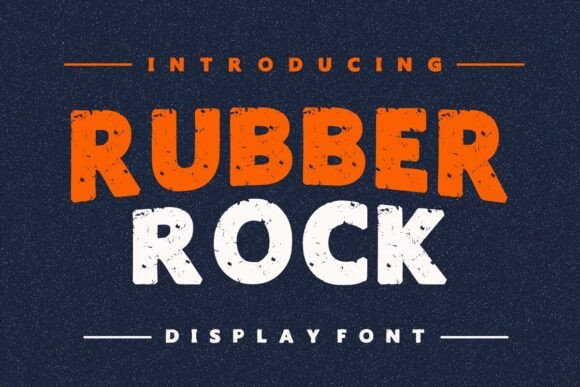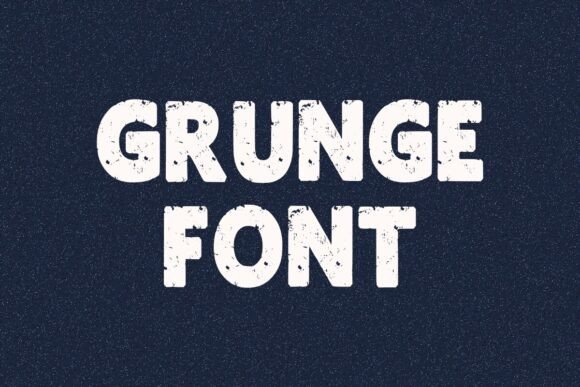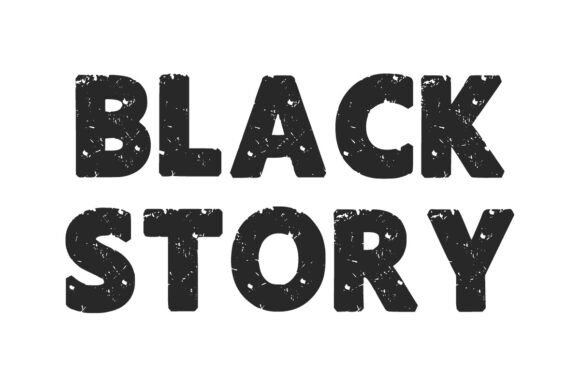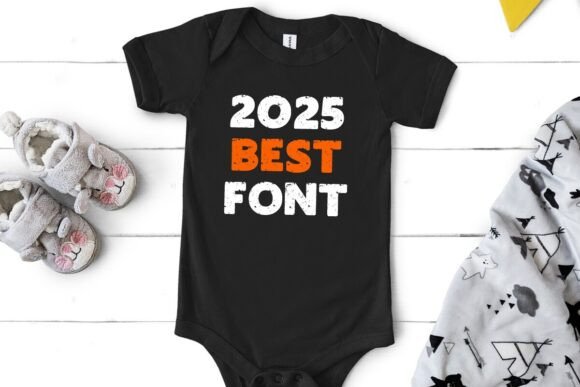
Rubber Rock Font
About the Rubber Rock Font
We are excited to introduce Rubber Rock Font, a must-have typeface for any serious designer. Rubber Rock is a Uppercase Vintage, Retro, dirty, grunge bold display font perfect for various projects such as blog posts, logos, branding, ads, invitations, greeting cards, planners, photo albums, decorations, and more.
Rubber Rock excels as a headline font for posters, branding materials emphasizing a vintage or rebellious aesthetic, and short-form content like logos and packaging. Its bold, grunge style commands attention but is less suitable for body text or UI elements; the heavily textured nature impairs readability in extended passages.
Pairing Rubber Rock with a clean sans-serif like Futura or a minimalist geometric font will create strong visual contrast, balancing its rugged character. For a more vintage feel, a complementary serif like Playfair Display could be used, but ensure sufficient point size difference to maintain readability.
The font’s core personality is bold and rebellious, conveying a sense of vintage grit and raw energy. It’s ideal for brands projecting authenticity, strength, or a retro-inspired aesthetic.
Rubber Rock Font Usage Examples
Rubber Rock Font Example